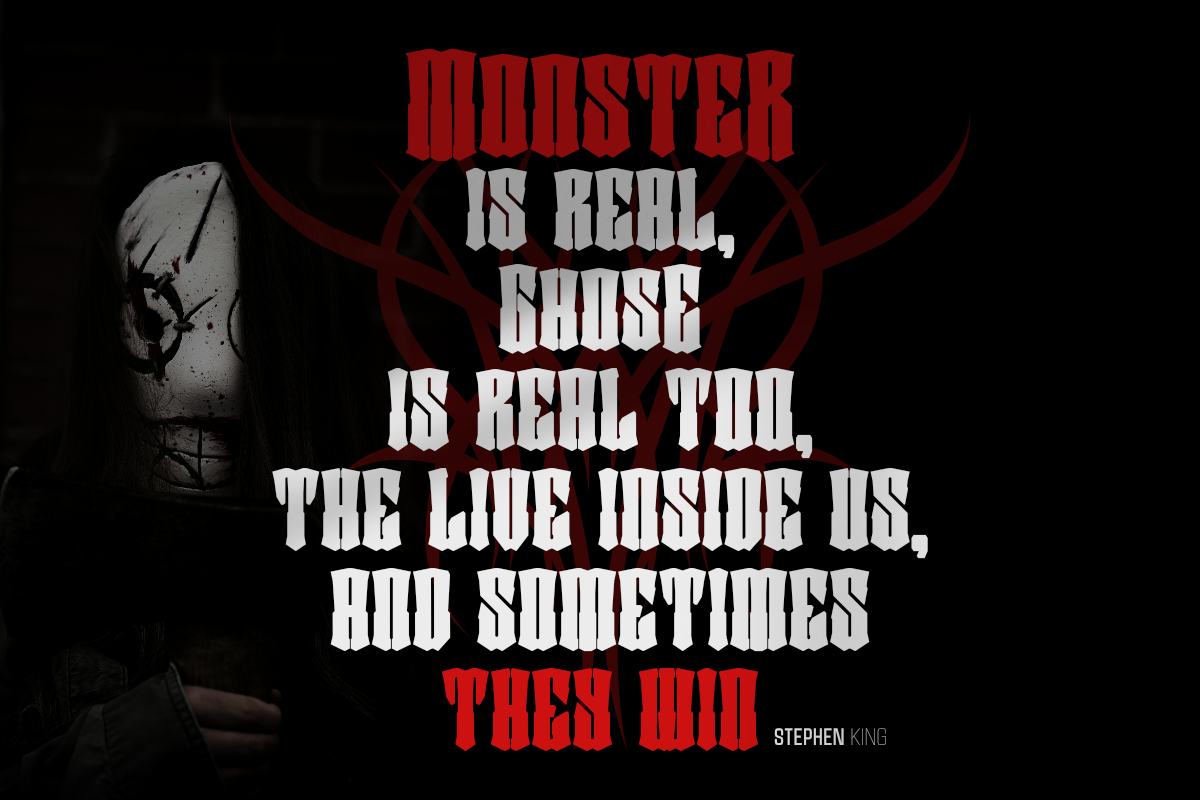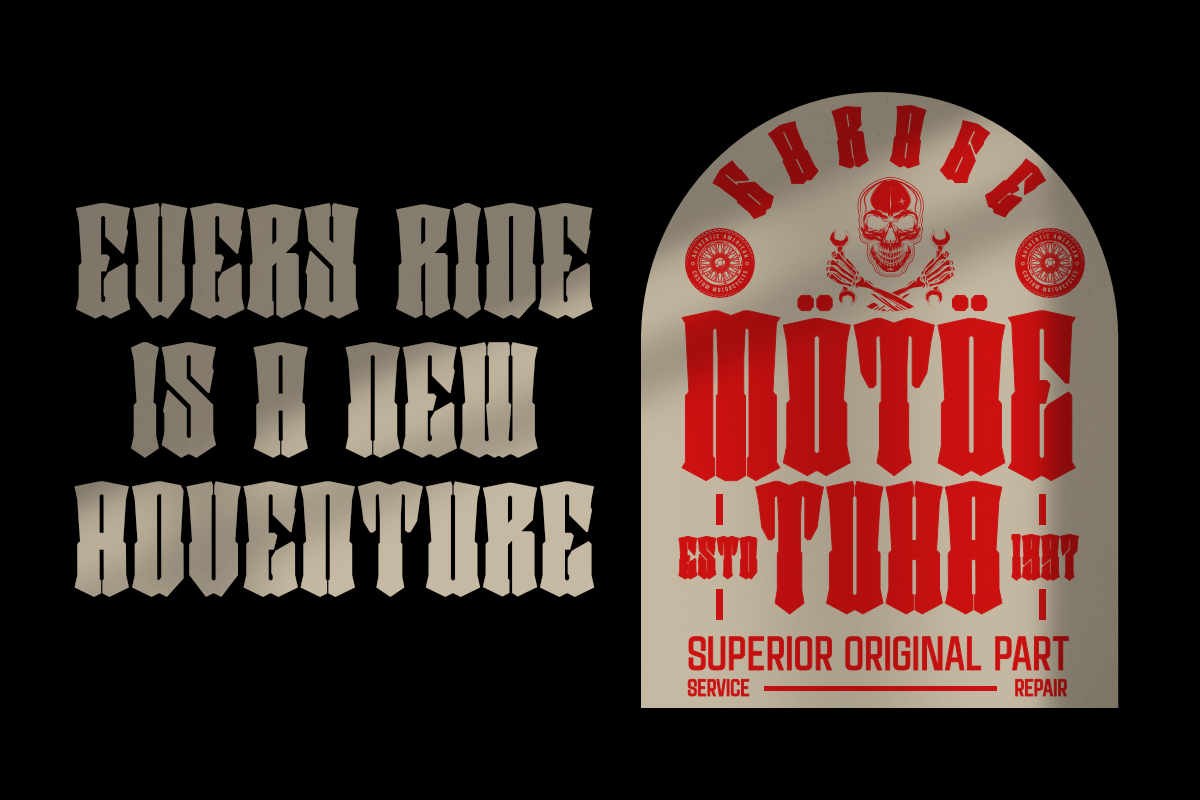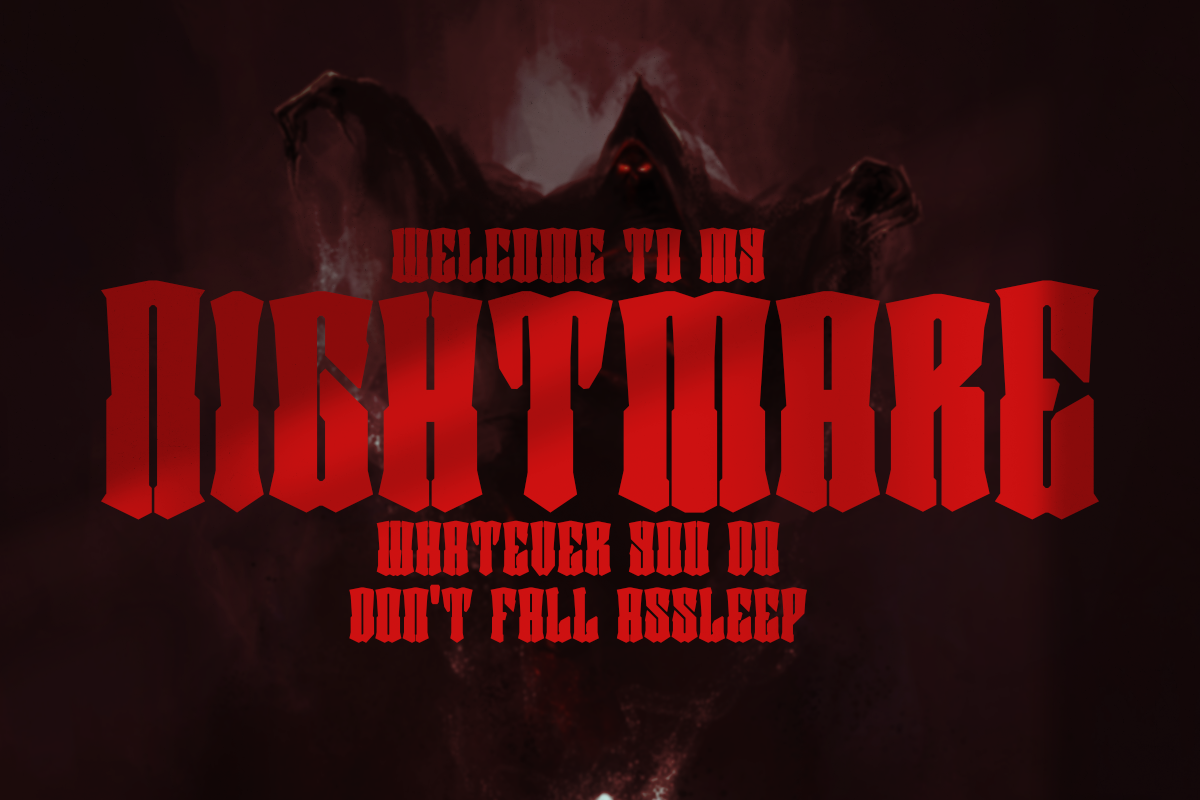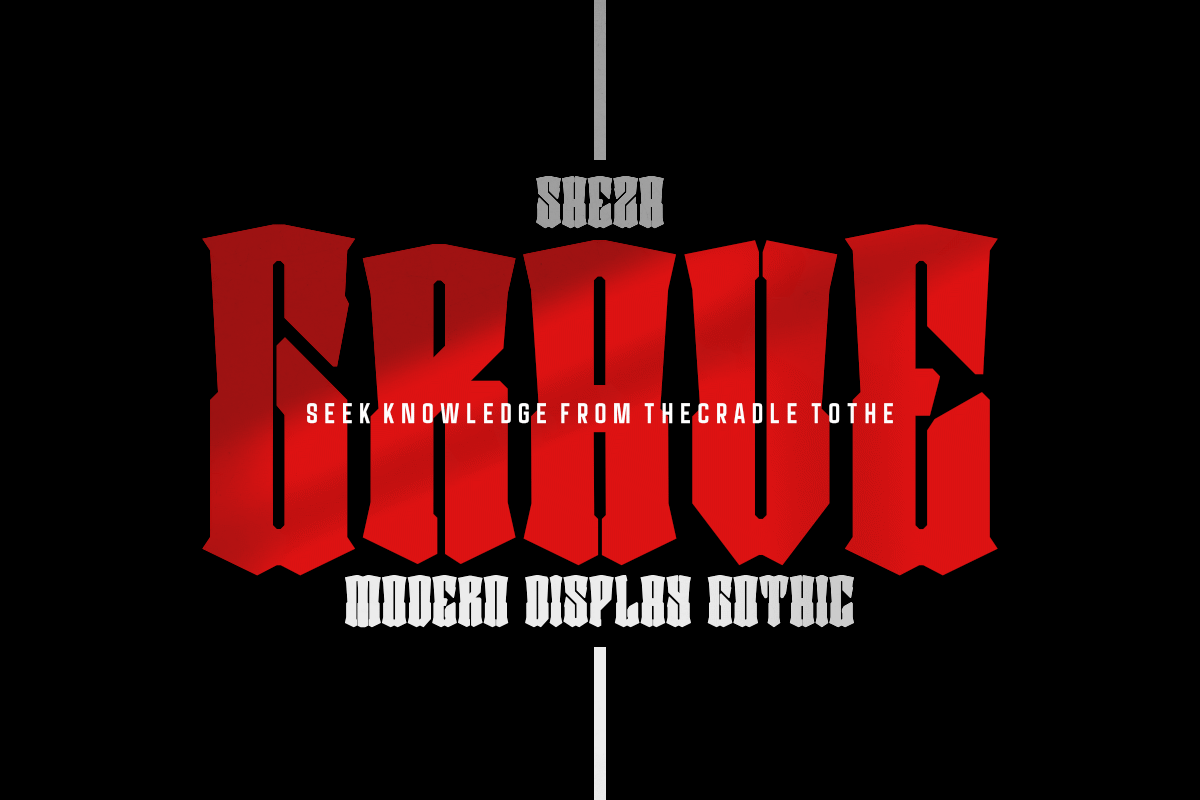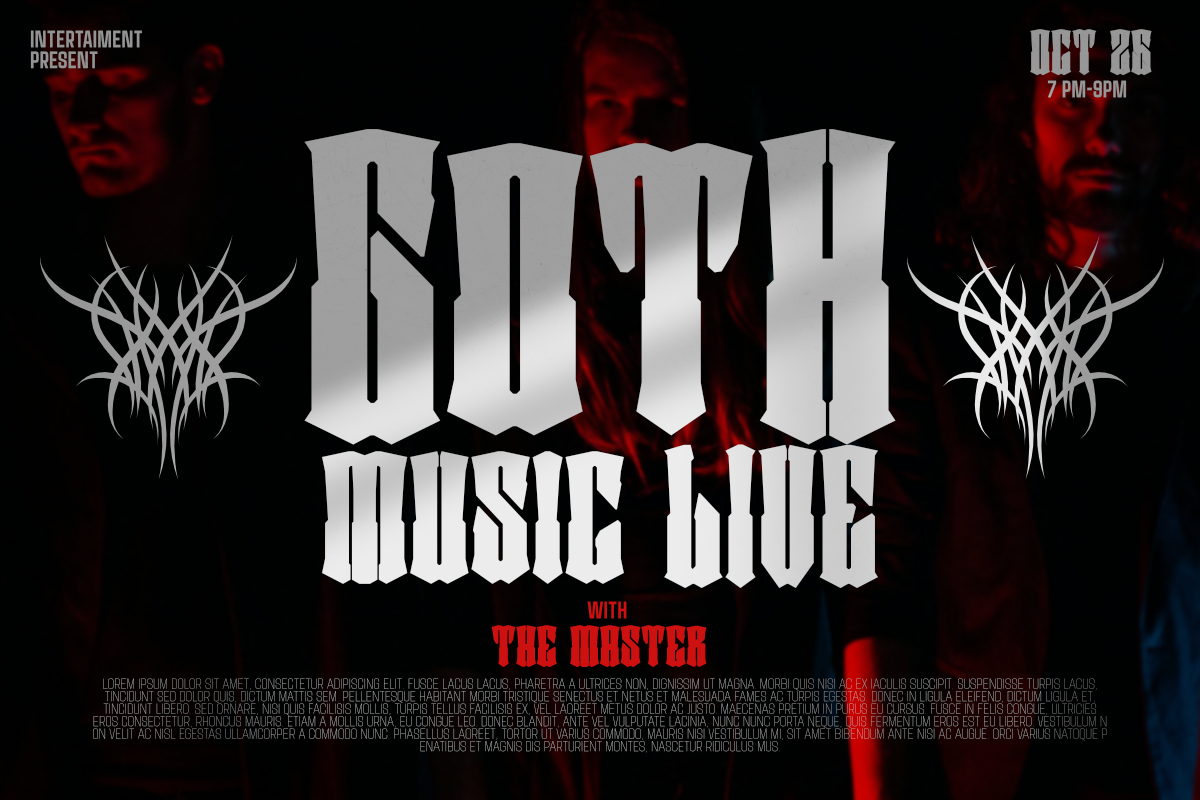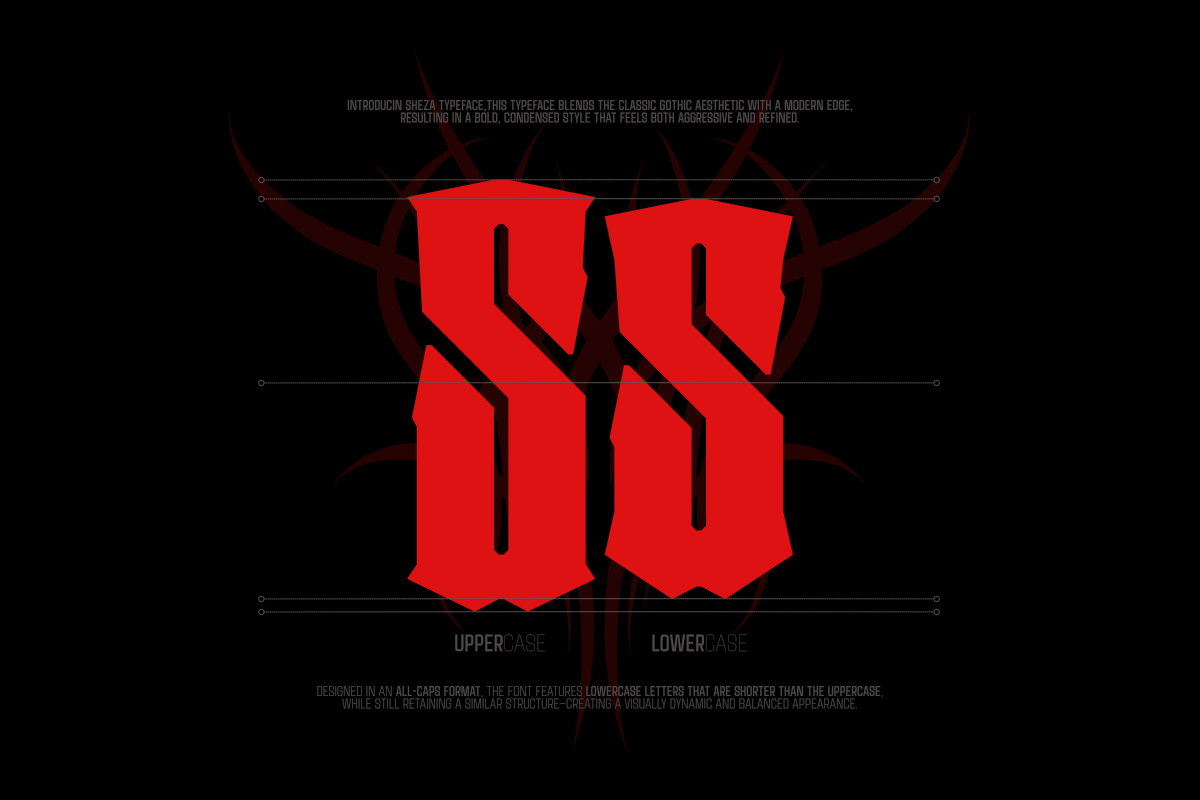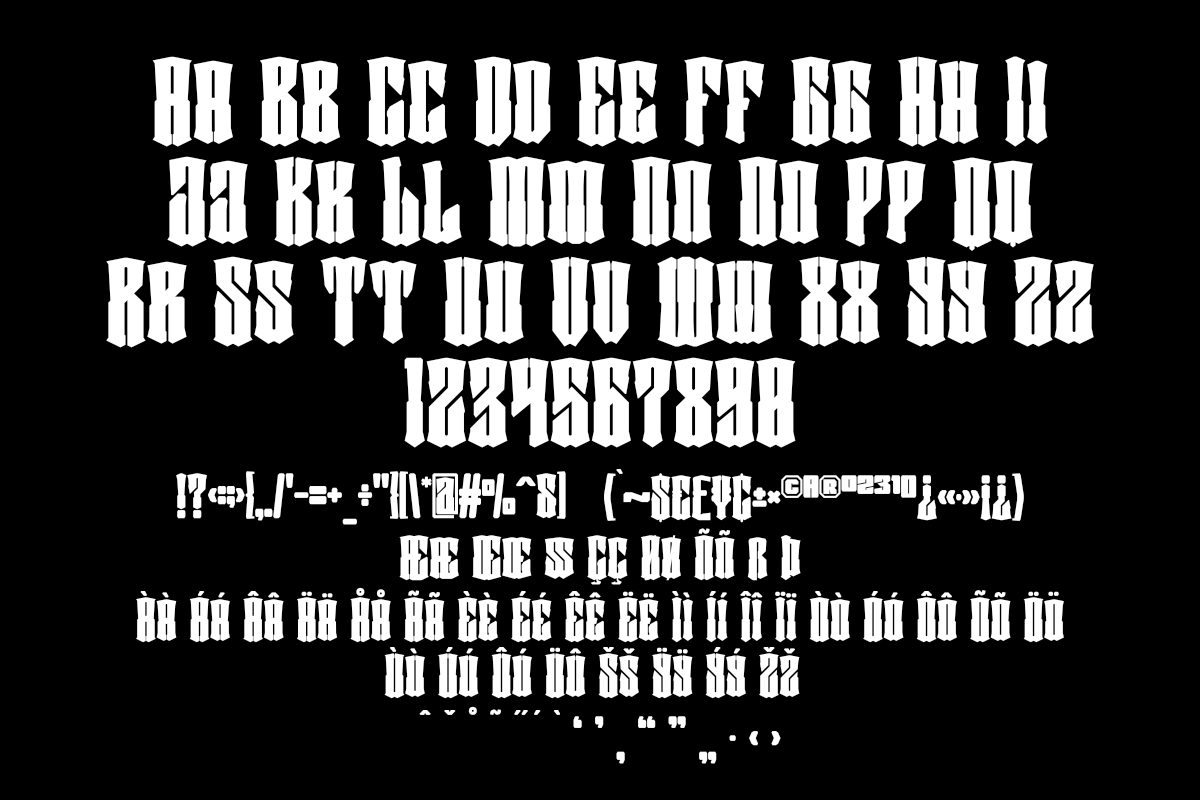
Sheza
Introducin Sheza typeface,this typeface blends the classic gothic aesthetic with a modern edge, resulting in a bold, condensed style that feels both aggressive and refined. Designed in an all-caps format, the font features lowercase letters that are shorter than the uppercase, while still retaining a similar structure—creating a visually dynamic and balanced appearance.
With sharp angles and blackletter-inspired forms, this font captures the essence of gothic and metal culture without sacrificing legibility. Its bold and condensed proportions make it ideal for impactful headlines, logos, album covers, and other graphic elements within the metal music, dark art, or underground subculture scenes.
This typeface is a perfect fusion of tradition and modernism, built to deliver intensity, character, and unmistakable attitude.